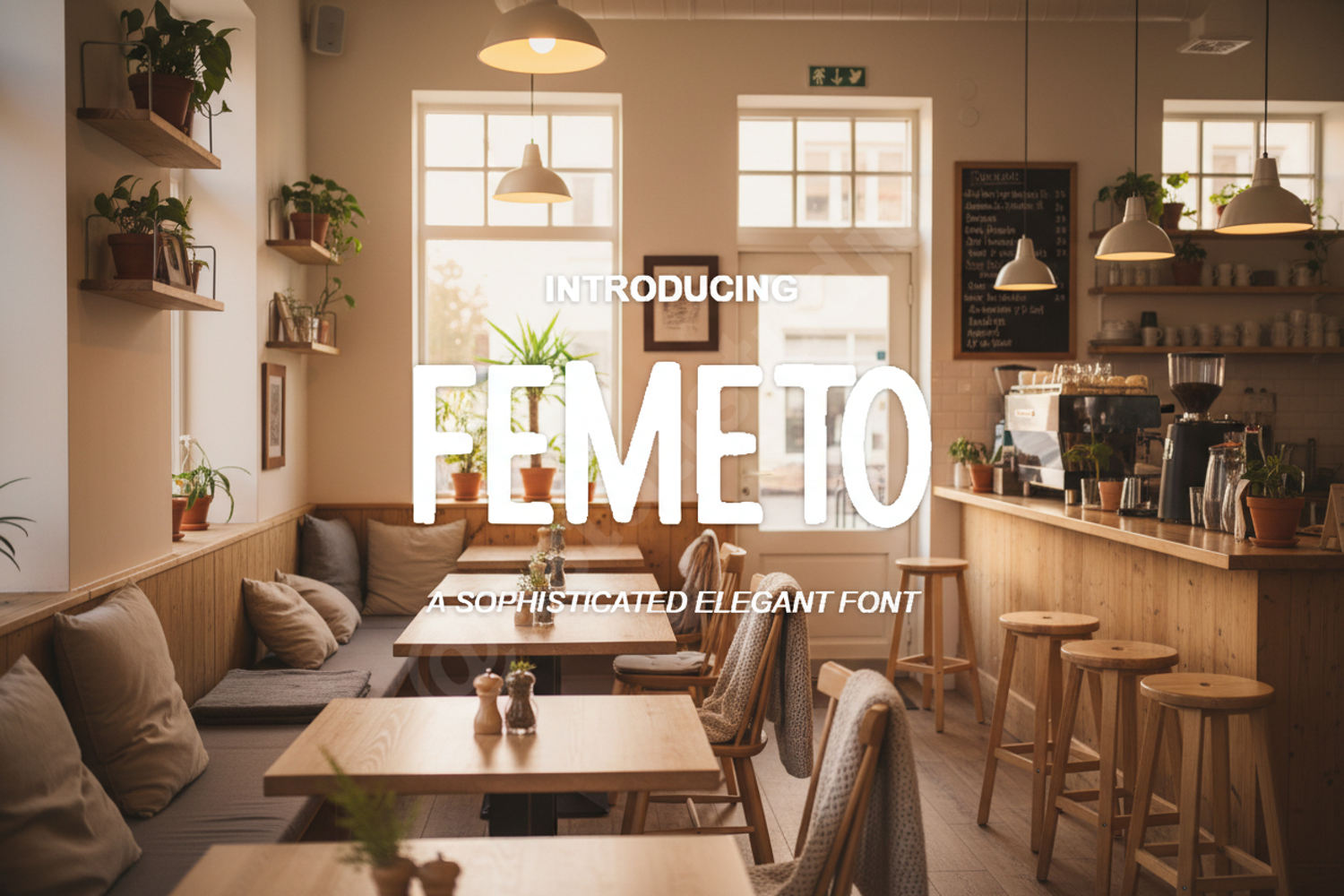
Femeto - Sophisticated Modern Serif Font
Femeto
Elevate your creative projects with Femeto, a premium serif font that seamlessly blends timeless elegance with contemporary flair. Designed for designers who demand precision and style, Femeto offers a sophisticated aesthetic that commands attention while maintaining perfect readability. Its clean lines and balanced proportions make it a versatile choice for both digital and print media.
- Standard Ligatures and Unique Alternates
- Luxury Branding: Perfect for high-end logos and visual identities.
- Editorial Design: Ideal for magazine layouts, headlines, and sophisticated body text.
- Wedding Stationery: Adds a touch of class to invitations, save-the-dates, and menus.
- Social Media: Create eye-catching graphics, refined quotes, and professional banners.
- Product Packaging: Enhances the premium feel of any physical product or label design.